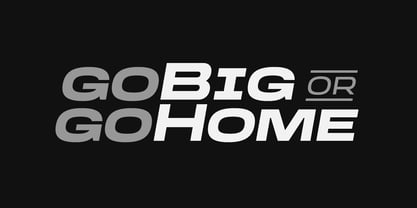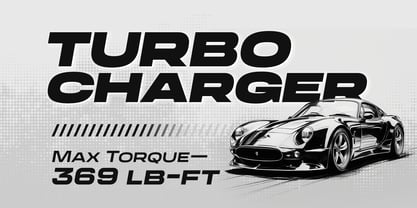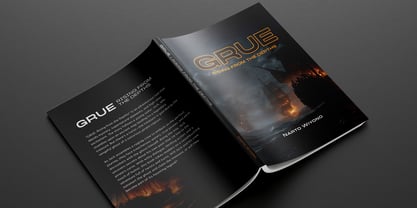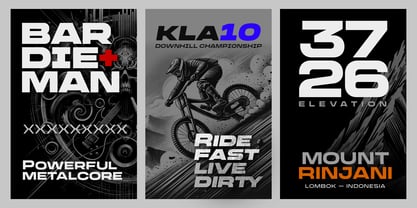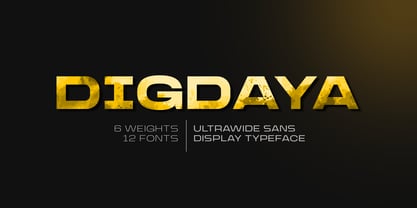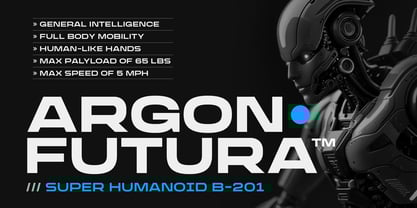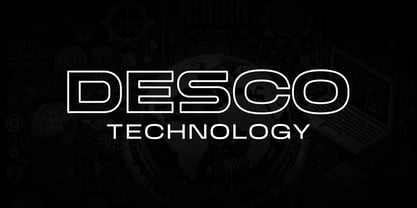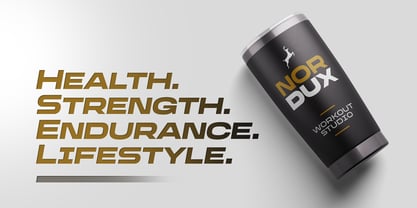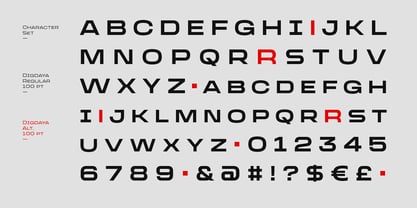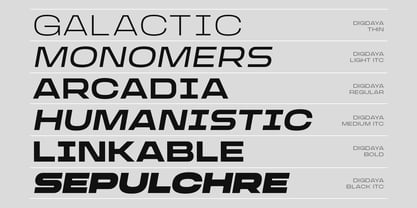
Digdaya
The Digdaya Font Family was designed by Arwan Sutanto and published by Locomotype. Digdaya contains 12 styles and family package options. More about this family
Digdaya is a bold sans-serif display font designed to provide a strong visual impact. It is ideal for headlines, posters, branding, and any design that demands attention because of its ultra-wide proportions and all-capital letters, which convey power, confidence, and modernism.
Digdaya provides flexibility for any project with its six adaptable weights, ranging from Thin to Black, and matching italics. Its eye-catching design and wide multilingual support enable you to produce powerful visuals for both bold, dynamic compositions and minimalist layouts.